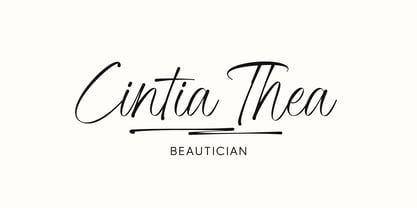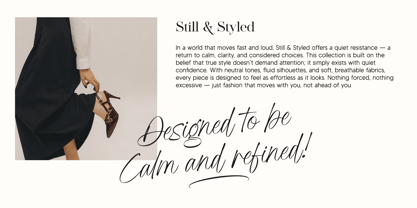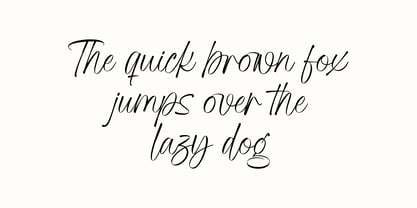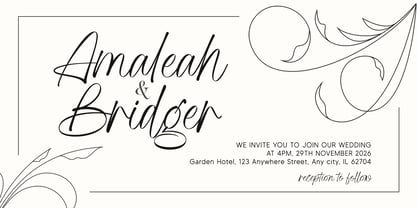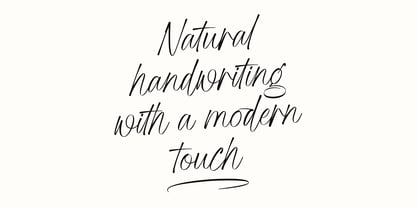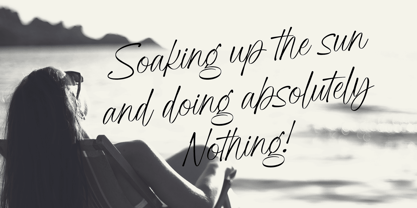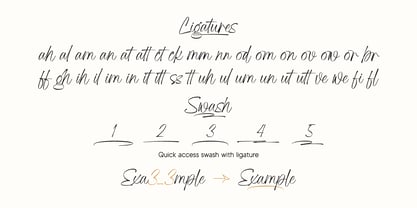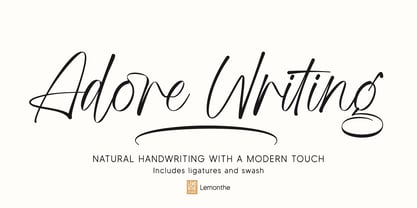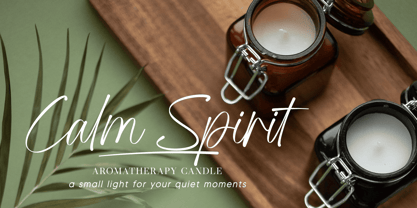
Adore Writing
by Lemonthe
The Adore Writing Font Family was designed by Dwi Ahidian and published by Lemonthe. Adore Writing contains 1 styles.
Adore Writing is a handwritten font with an elegant and modern style. Featuring smooth strokes and flowing letterforms, it offers a clean yet naturally handwritten feel. Perfect for a wide range of design needs such as logos, wedding invitations, product branding, social media quotes, and packaging. It includes ligatures and swashes to enhance the look of your text and add creative variety.
"Lemonthe is a type foundry operated by Dwi Ahidian, a letter enthusiast who enjoys calligraphy and loves experimenting with letter forms. Lemonthe provides a captivating collection of typefaces, each carrying a creative and unique experimental touch, meticulously crafted by hand. Dedication to detail ensures that some typefaces emanate a deep and serious aesthetic, while others showcase a more playful and creative side."